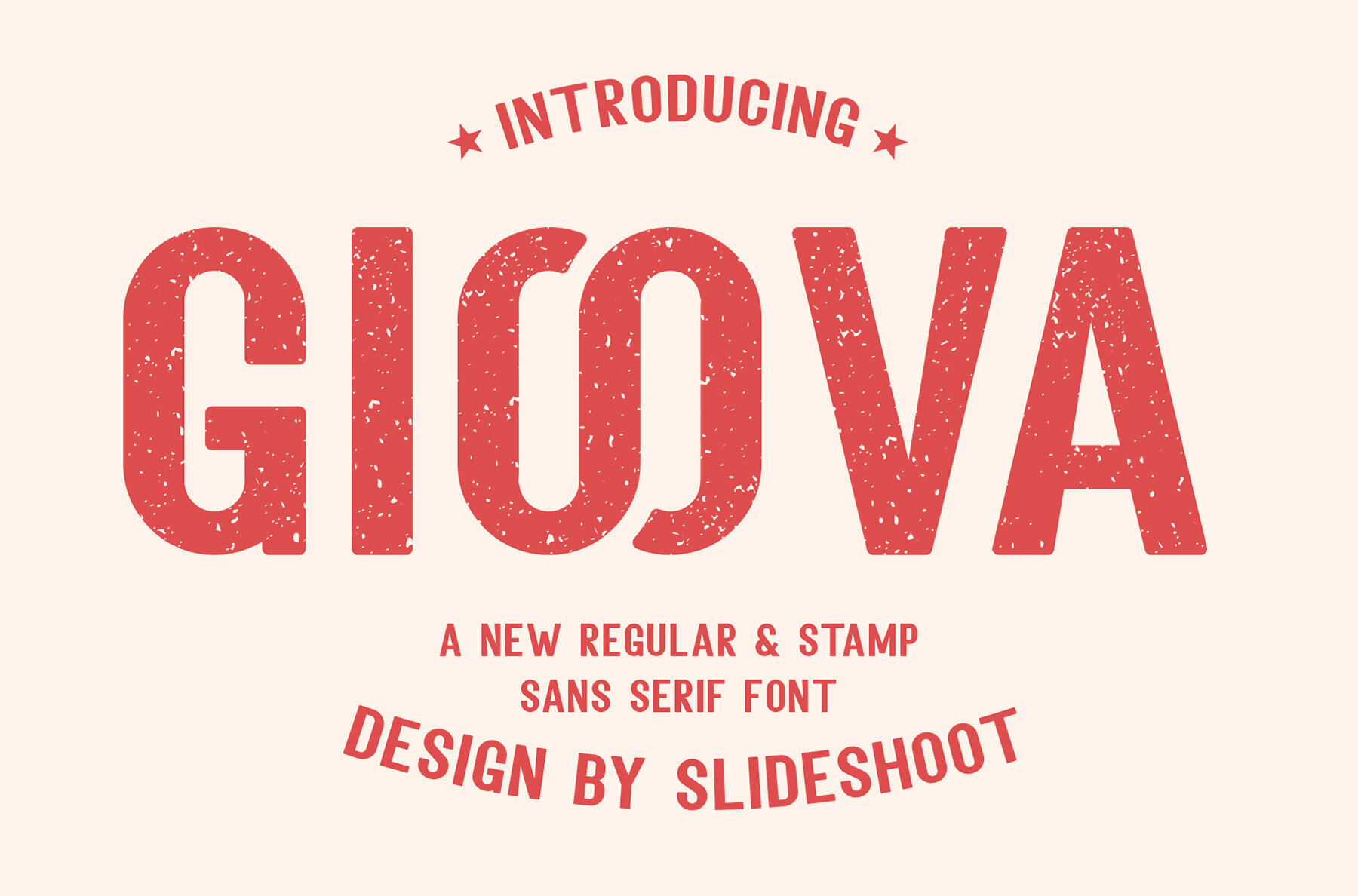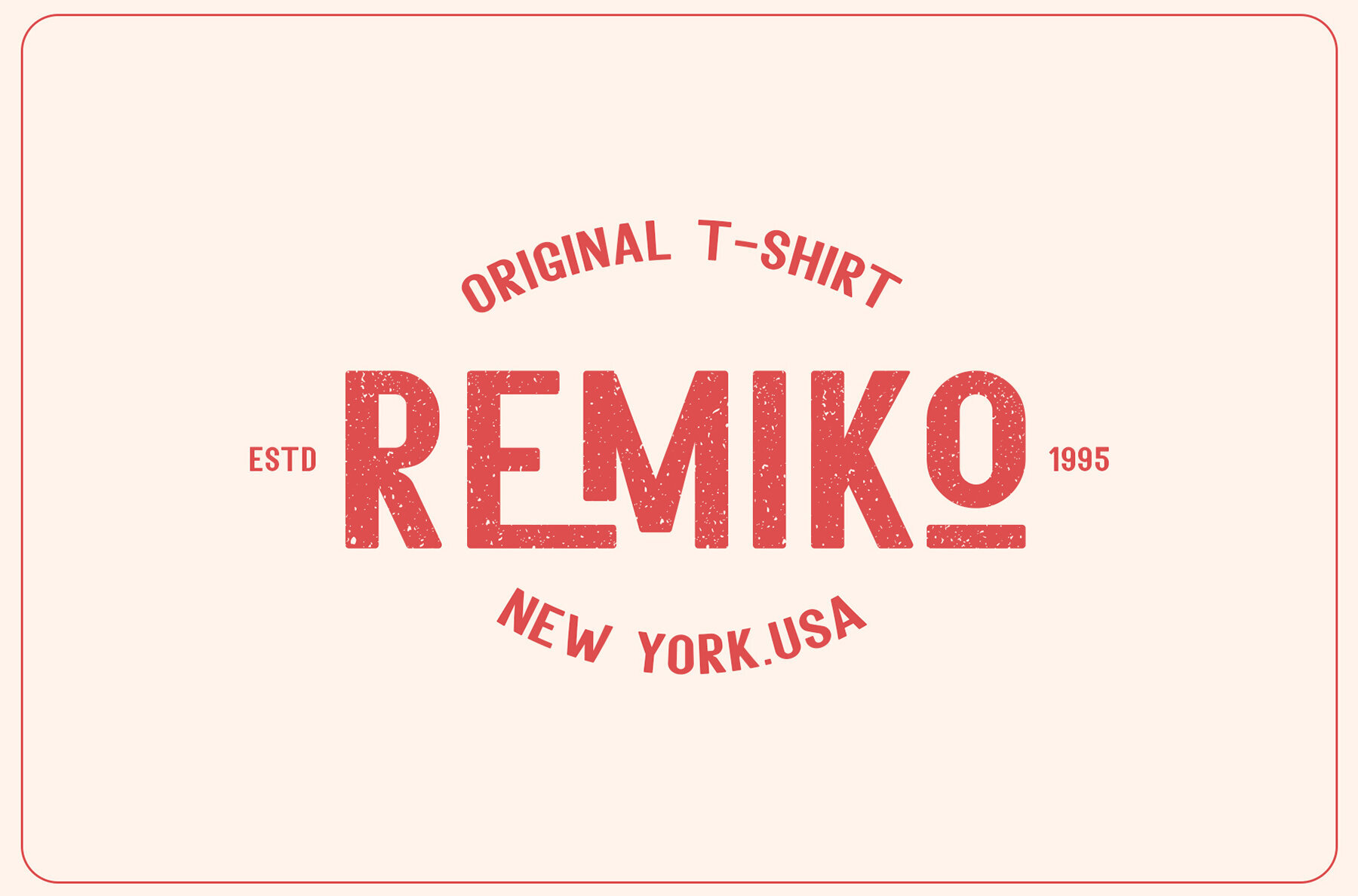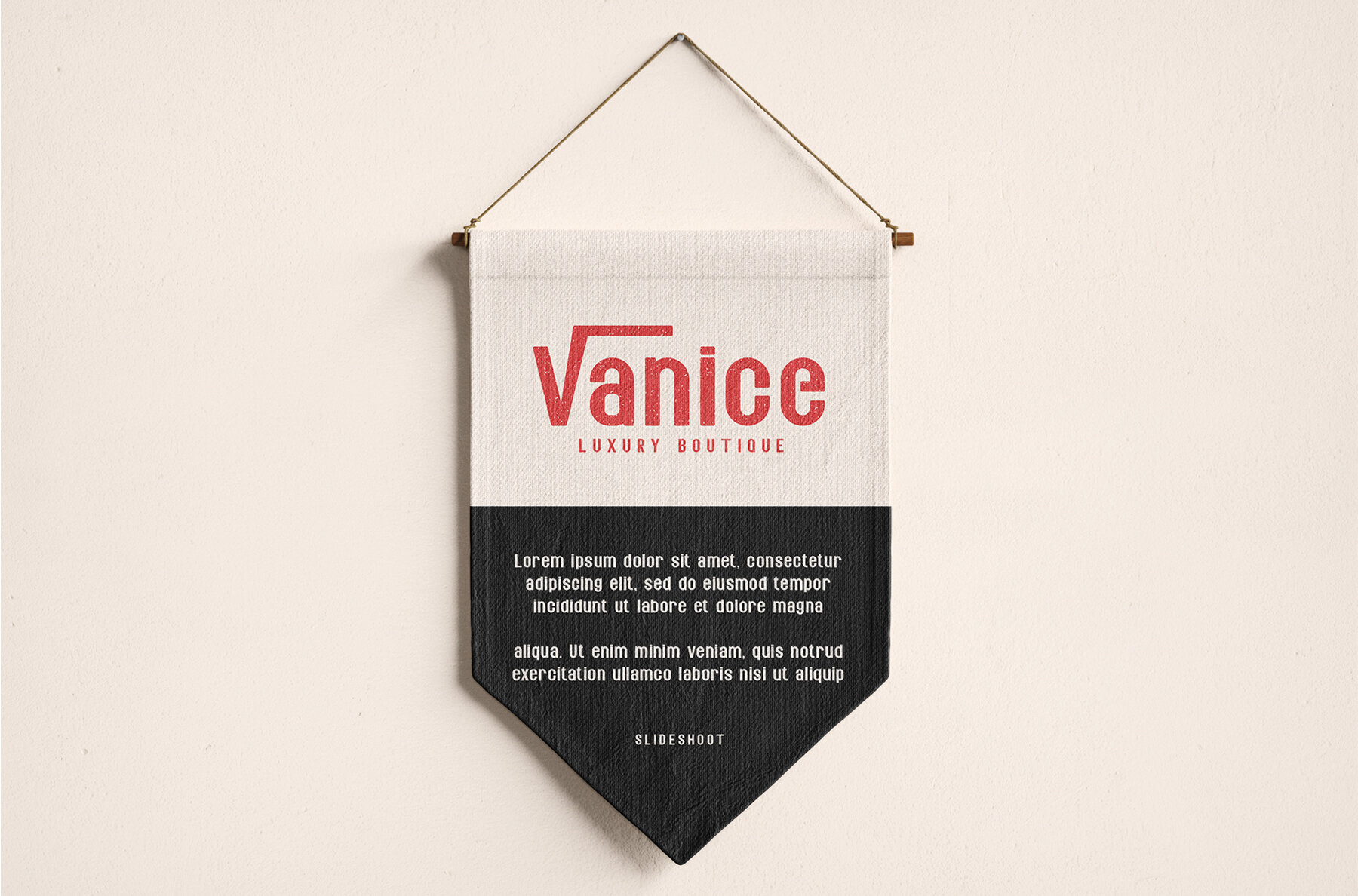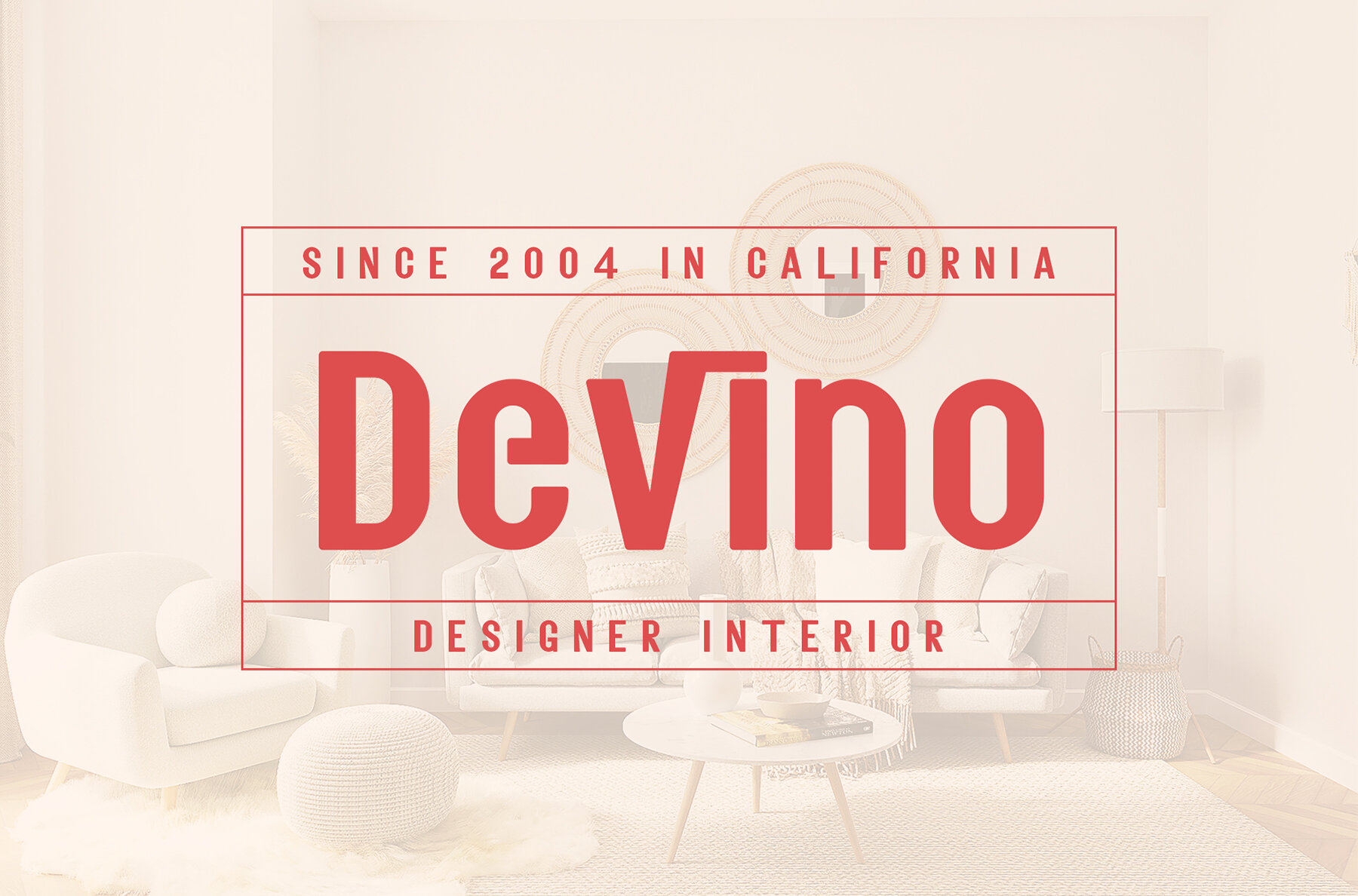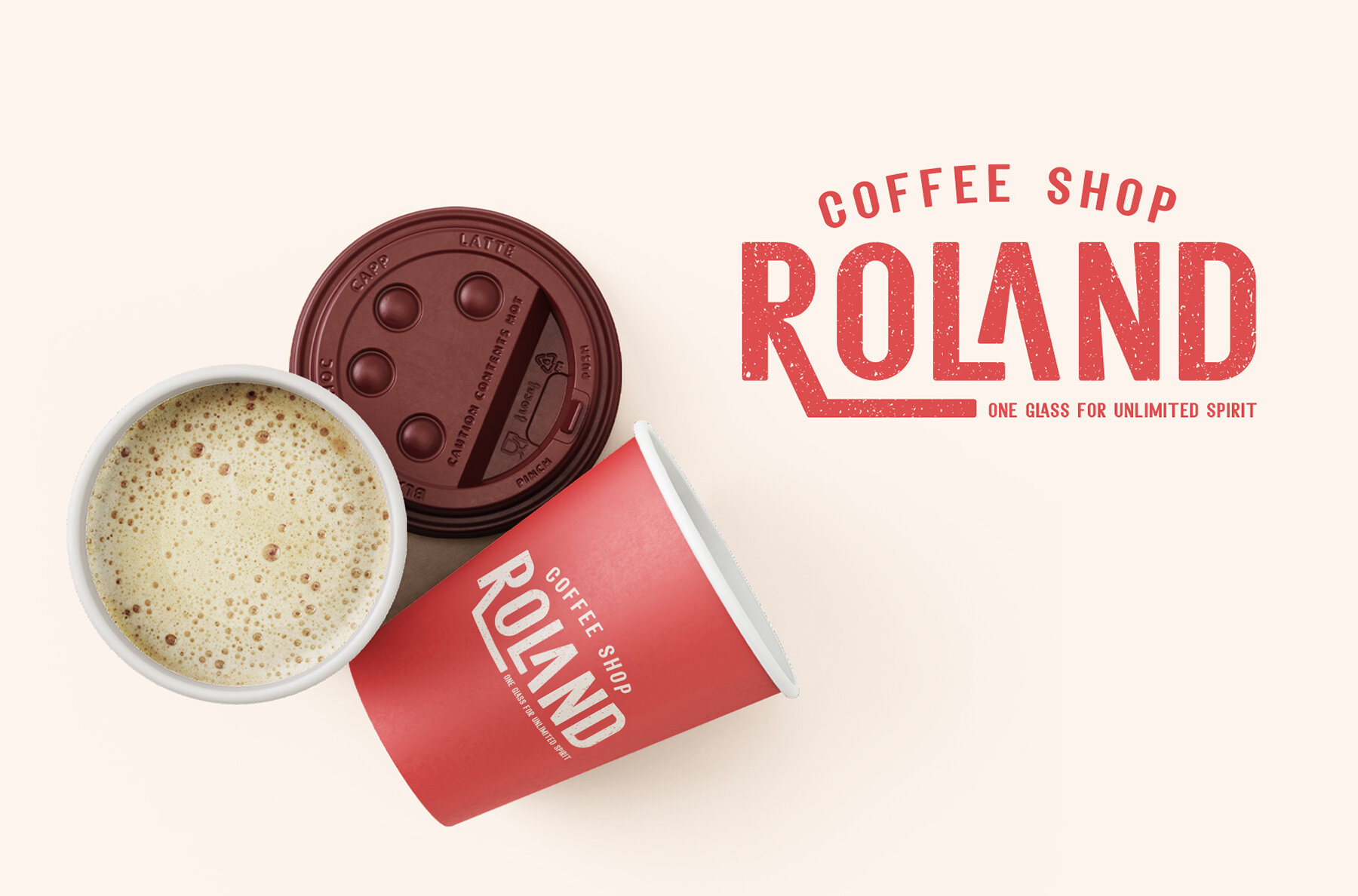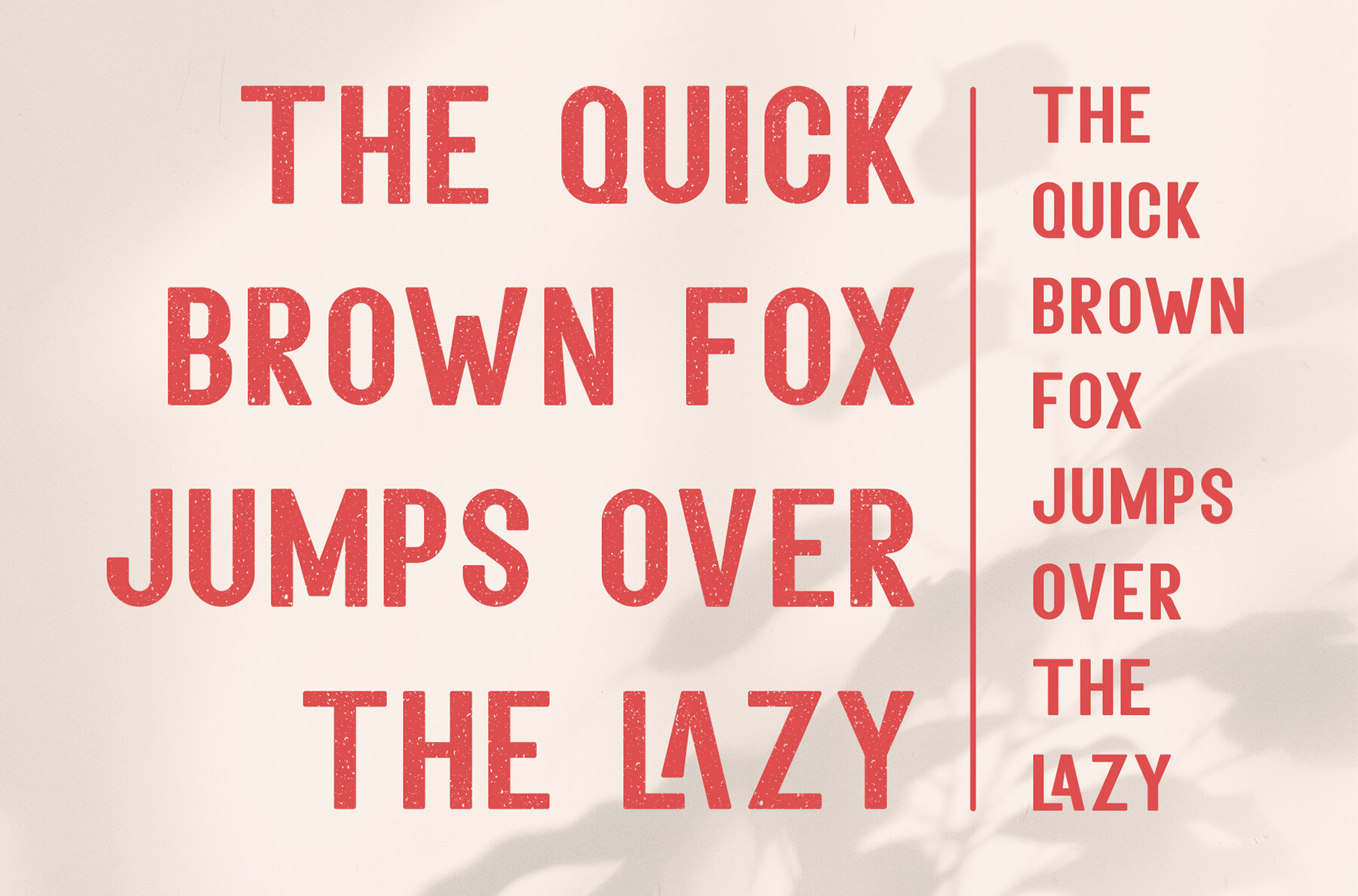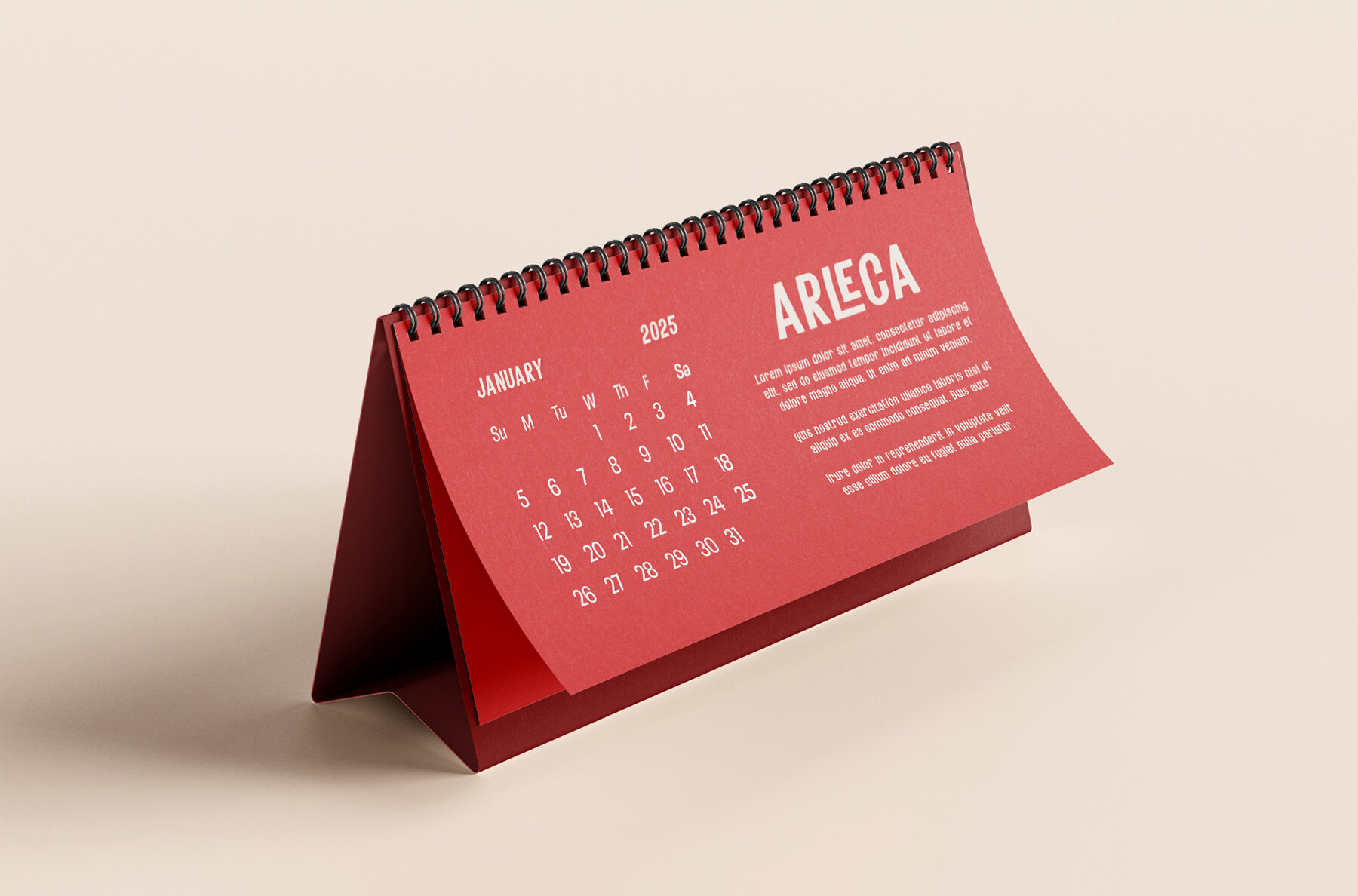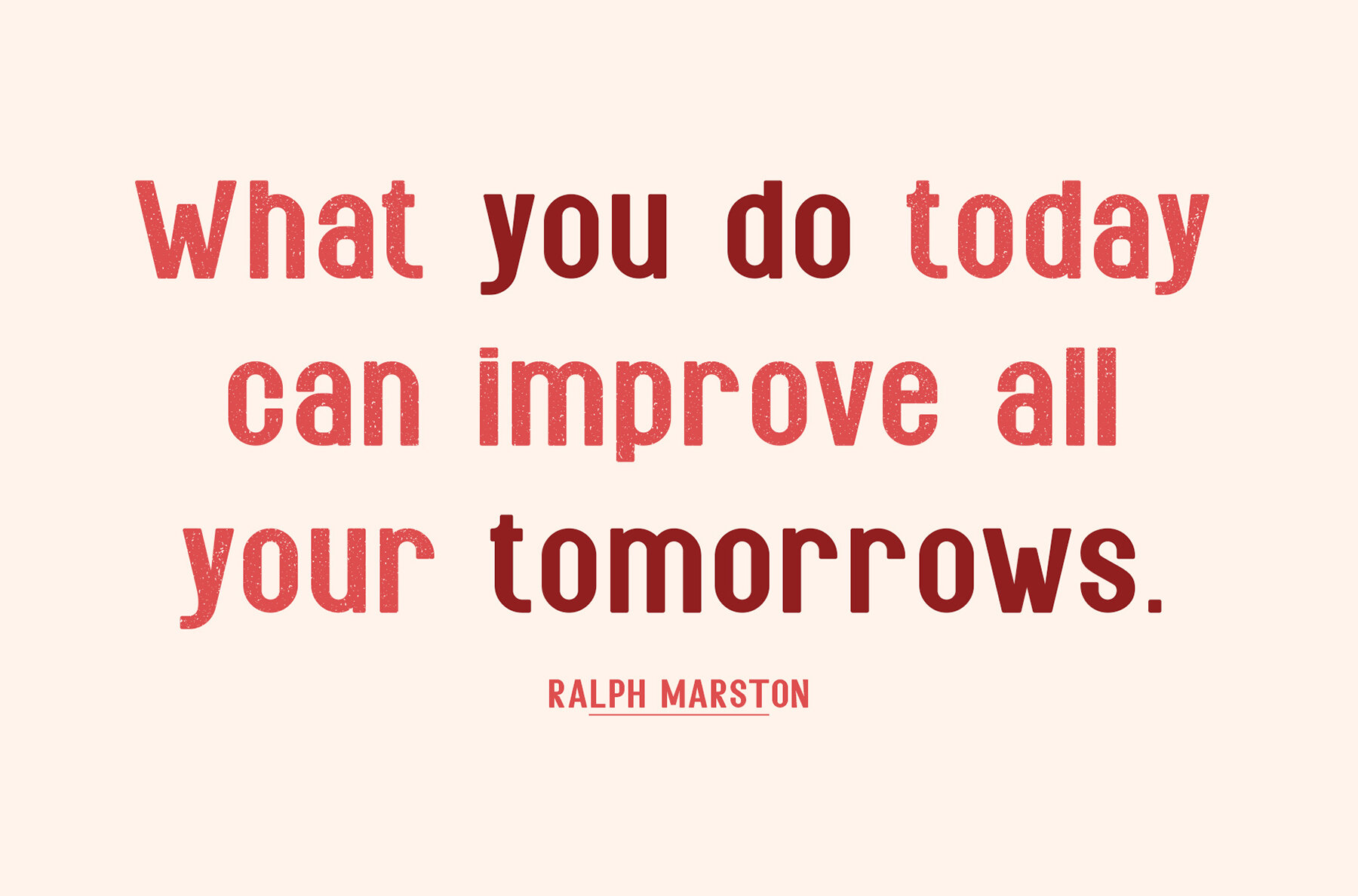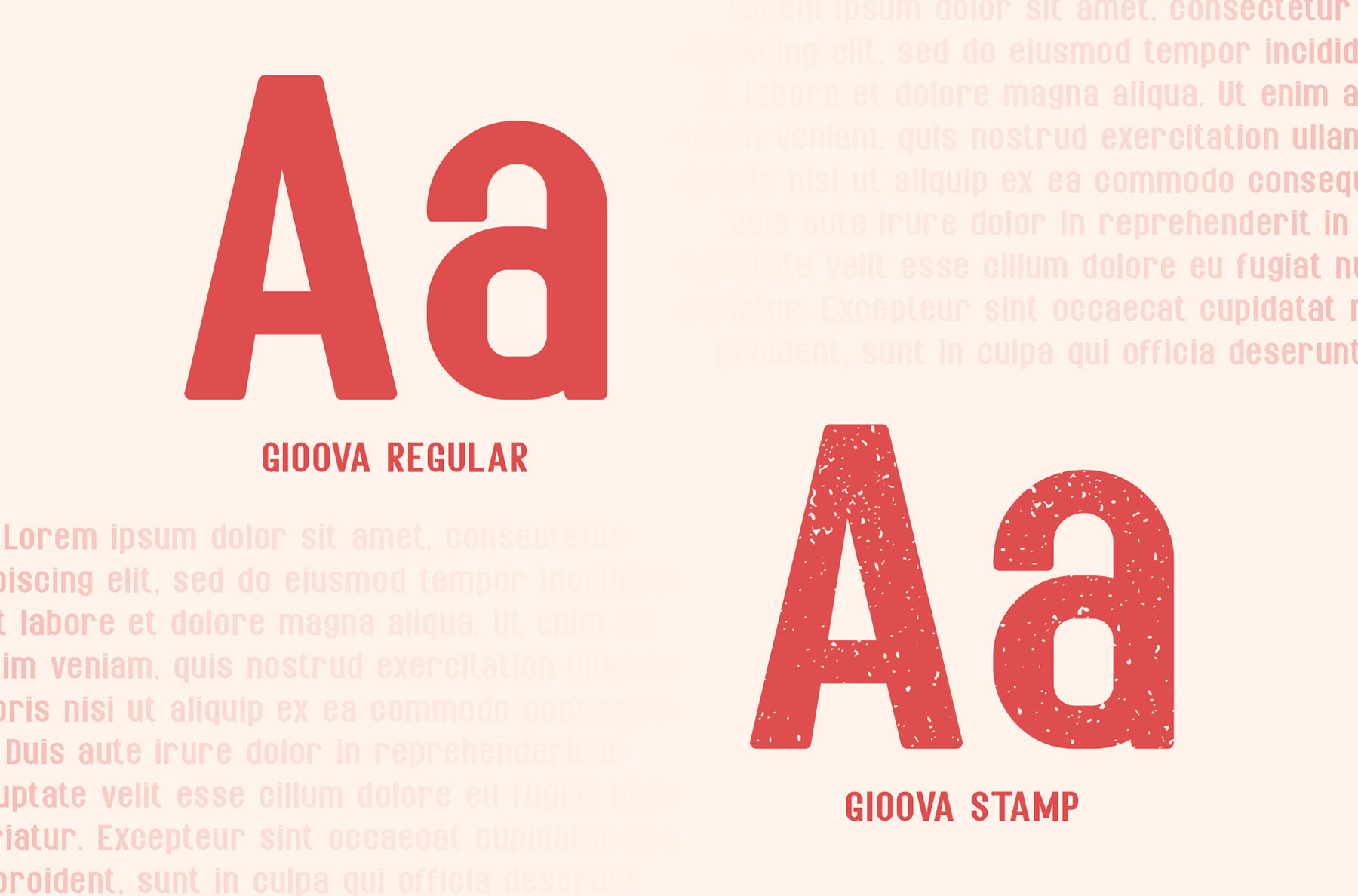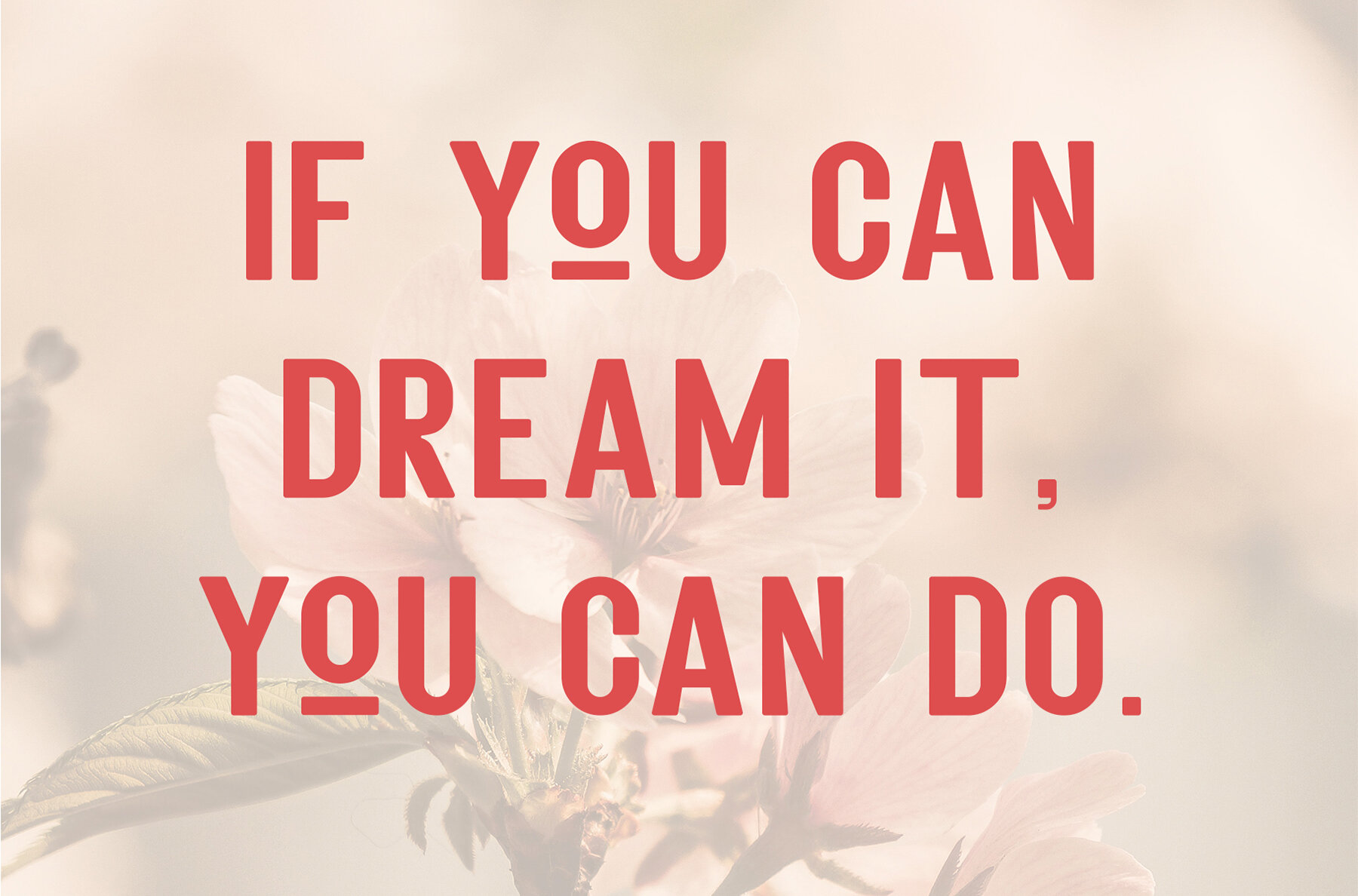
Gioova Font
Gioova Sans Serif is a refined and seamless typeface that offers both elegance and versatility, making it ideal for a variety of design projects. It shines in creating invitation cards, company logos, movie titles, business cards, book titles, and brand names. With its subtle yet sophisticated style, Gioova Sans Serif delivers a polished look to any professional or creative endeavor.
The font is enhanced by stylish alternations and ligatures, offering a unique personalization to your work. It includes uppercase and lowercase letters, along with numbering and punctuation, ensuring comprehensive design support. Compatible with major design software such as Adobe Illustrator, Adobe Photoshop, Adobe InDesign, as well as Microsoft Word, Gioova Sans Serif promises straightforward installation and usability across different platforms, catering to both PC and Mac users.